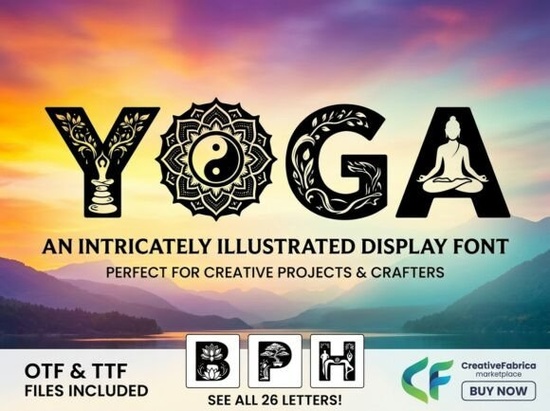
Yoga Font is a unique typeface designed for those who want to add a touch of calm and mindfulness to their creative projects. Whether you're working on branding for a wellness retreat or designing packaging for an organic tea line, this font offers more than just letters it brings a visual narrative that resonates with peace and balance.
What sets Yoga Font apart is its integration of spiritual symbols into each character. From flowing yoga poses to intricate lotus blossoms, every letter is crafted to evoke a sense of serenity. This makes it ideal for designers looking to create content that feels both artistic and meaningful. The font’s clean, high-clarity block geometry ensures readability while maintaining a strong visual presence.
How can Yoga Font enhance your design work?
If you’re a designer or small business owner focused on wellness, spirituality, or nature-inspired themes, Yoga Font can be a powerful tool. It works well for logos, book covers, and digital interfaces that aim to communicate tranquility and mindfulness. Its versatility allows it to fit into a wide range of creative applications without losing its distinct character.
For print-on-demand sellers, this font adds a premium feel to products like wall art, greeting cards, and stationery. Its elegant design makes it suitable for both modern and traditional aesthetics, giving you the flexibility to experiment with different styles.
What makes Yoga Font stand out from other fonts?
Unlike standard fonts that focus solely on typography, Yoga Font incorporates symbolic elements directly into its design. This means each letter isn’t just a shape it tells a story. For example, some characters feature miniature bonsai trees or balancing pebble stacks, adding depth and meaning to your text.
The font also includes a standalone yin-yang mandala character, which can be used as a decorative element in your designs. This level of detail makes it a standout choice for projects that require a deeper connection to the theme of balance and harmony.
Where can you use Yoga Font?
Yoga Font is perfect for a variety of creative uses. Here are a few examples:
- Wellness retreat marketing materials – Create eye-catching posters and flyers that reflect the peaceful vibe of your event.
- Holistic spa logos – Use the font to design a logo that conveys relaxation and renewal.
- Meditation app interfaces – Add a calming touch to your app’s visuals with this thoughtful typeface.
- Spiritual book covers – Enhance the look of your publication with a font that aligns with its message.
- Organic tea packaging – Use it to create labels that feel natural and serene.
Its adaptability makes it a valuable addition to any designer’s toolkit, especially if you're targeting audiences interested in mindfulness and self-care.
Why choose Yoga Font over other decorative fonts?
If you're looking for a font that goes beyond basic styling, Yoga Font offers something special. While other decorative fonts may focus on aesthetics alone, this one integrates meaningful symbolism into every letter. This makes it more than just a visual element it becomes part of the message you’re trying to convey.
For those who appreciate both form and function, this font provides a unique way to express creativity. It’s not just about making your text look good; it’s about creating a deeper connection with your audience through thoughtful design.
Whether you're a designer, crafter, or small business owner, Yoga Font provides a fresh and meaningful way to elevate your work. By incorporating elements of mindfulness and spirituality into your designs, you can create a more engaging and authentic experience for your audience.
Consider experimenting with this font in your next project to see how it can bring a new level of depth and beauty to your creations.